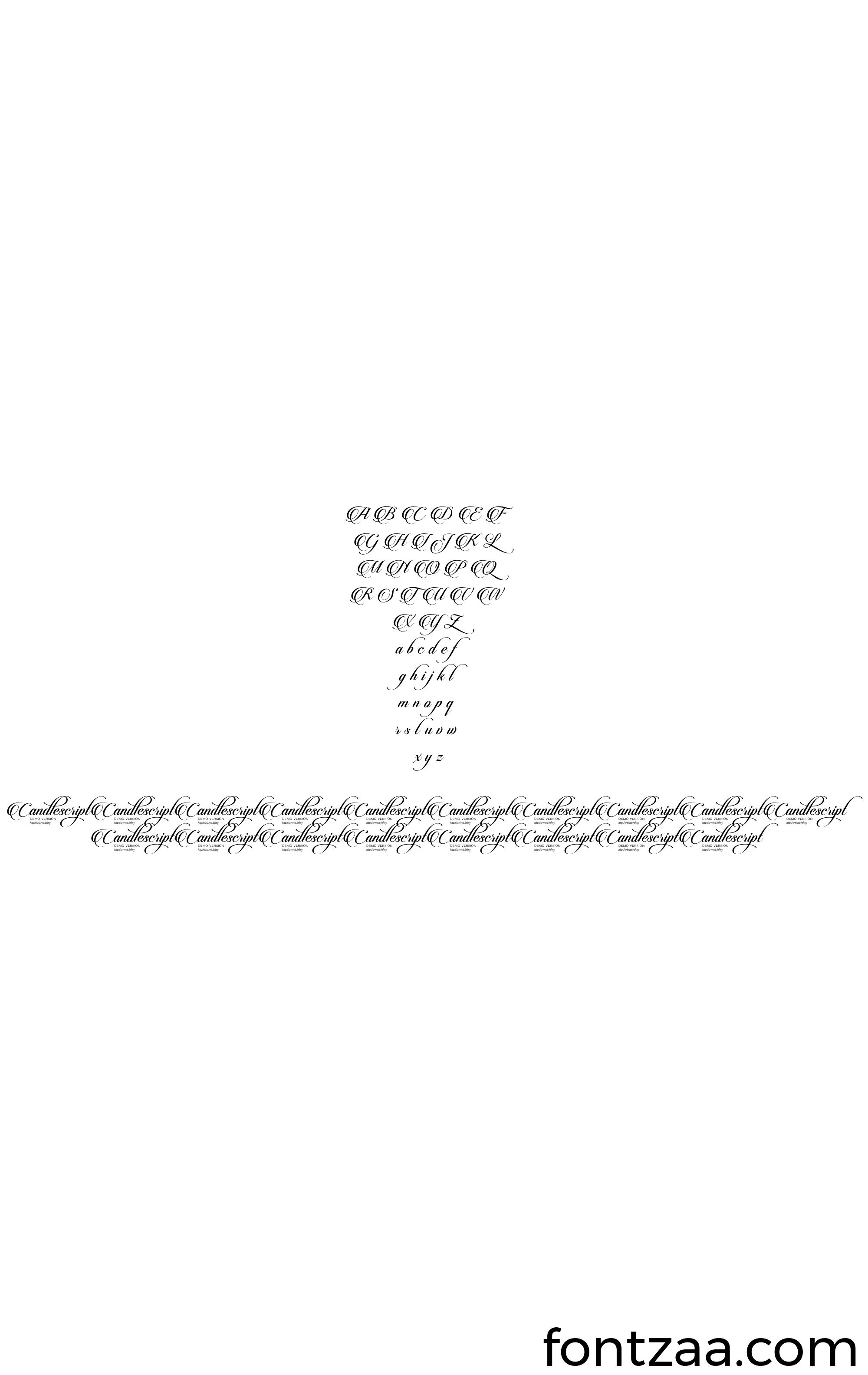
Candlescript font is a beautiful, elegant script typeface with fluid, flowing strokes designed by the highly acclaimed Swedish type designer Måns Grebäck. The font is distinguished by its fluid and flowing brush strokes and emulates handwritten calligraphy in the most beautiful and decorative form possible.
The Candlescript is unique and expressive because of its gorgeous and graceful letterforms. Its calligraphic impact is very fluent. Every inscription is swept while spending the irregular strokes and flourishes between bold strokes. It works beautifully on any writing piece requiring an artistic writing style; thus, it acts like icing on the cake, very perfect for wedding invitation cards, greeting cards, signs, and brand materials of companies and businesses.
As far as its design is concerned, Candlescript contains uppercase and lowercase letters, numerals, punctuation marks, as well as several stylistic alternates and ligatures. These extra glyphs allow designers to change the looks of typography and yield.
This is why this font has been named “Candlescript.” It brings to mind the artistic skills and crafts associated with the calligraphic script, that is, writing handwritten texts with the light from a candle. It is this very romantic aspect that makes this typeface so expressive, which is why most designers search for it to express class and timeless beauty in their typographic works.
In short, Candlescript is a font with the most decorative face and elegant look. It carves an element of luxury and a touch of comprehension to any visual project and art, whether it is formal, javaxUpdateTime deactivate, or branding, and does offer a unique typographic solution for an authentic look of elegance and attention-grabbing intrigue.